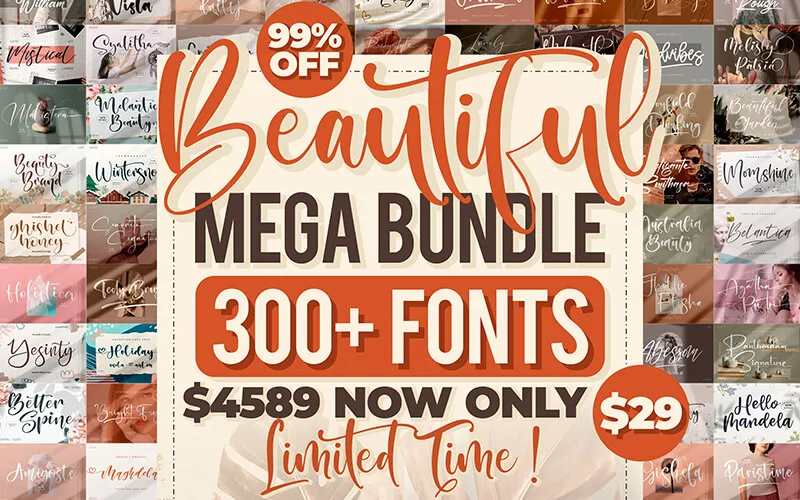
TL;DR
• 350+ beautiful fonts
• Multilanguage support on the majority of the fonts.
• Suitable for logos, crafting, invitation cards, apparel, headlines, business cards, inspirational quotes, tshirt, posters, wedding design, packaging and a lot more!
Need Fonts That Make Your Graphics Beautiful? Here’s presenting the –
350+ Beautiful Fonts Bundle
Make your text the hero of your graphics! Use fonts that not just emphasise the message but add beauty to your graphics. Bedazzle your graphics with delicate and beautiful fonts.
This bundle is not just about quality but great quantity too! You get a bundle of 350+ fonts at your disposal.
Create gorgeous wedding invites, stunning book covers, minimal logos and so much more with these beautiful fonts.
Beautiful Fonts Included In This Bundle:
• Stephenson Brandon
• Rossie Bella
• Beratone Emadre
• Dettina Laura
• Kagemasha
• Cardrone
• Butterfly Holiday
• Tametogde
• Tomihesta
• Roslitta Aganta
• Sandershon
• Aulia Beauty
• Namashte
• Simphonitta
• Futuristic Signature
• Clara Sherly
• Hercutes
• Herlita
• Authentic Calisttera
• Hirestari Love
• Huttan Cerote
• Charlotte Pharly
• The California Hustle
• Hiratheria
• Indonesia Ceriwise
• Menttari Sparkle
• Chamelia Blinkar
• Amantaria Beauty
• Butterfly Glorista
• Sarah betty
• Marira Binttang
• Kalingtone Brilliant
• Derlinata Space
• Lemonte Buster
• Aprilia Marelo
• Amalia Nurse
• Clarlisse Dawson
• Happy Floral
• Wonderful Rendola
• Love Erlia
• Patrick Hinton
• Rallystta
• Emely Love
• Rubie
• Lightshoot
• Ventta Watter
• Deirma
• Farmhouse Morning
• Syahrine Love
• The Limited
• Darinella
• Cheese Foodies
• Mastille Attedro
• Aprilisa
• Beternite Limited
• Lemon Delight
• Washington Signature
• Lombok Beach
• BluBird
• Brilliant Signature
• Tomcat Likely
• Cutie Delina
• Silvana Bright
• Noted Party
• Amsterdam Signature
• Michigan Custom
• Buffalo City
• Candy Dino
• Twinkle Spark
• Rafaesty Wigera
• Baby Shower
• Handwritten Dreams
• Emely Days
• Handover Signature
• Balloon Dreams
• Amorillan Orgendam
• Sweet Cake
• Loving Paris
• Sepia Love
• Janji Cinta
• Drawing Kids
• Jacky Boys
• Summer Beach
• Pixel Craft
• Portofolio Brilliant
• Bullgeria
• Allinda Light
• Washington Lifestyle
• Delrosa Holiday
• Casttelo Signature
• Summer Lovely
• Marlyta Lovely
• Berline Spark
• Princes Gabriela
• Delia Monogram
• Humaira Monogram
• Bulgaria Emilton
• Amsterdam Laviera
• Rafaela Monogram
• Ziviliam Monogram
• Yumeira Monogram
• Vierasti Monogram
• Rotherdam Signature
• Party Rocky
• Lamberta Signature
• Dandelion Pelangi
• Prilistale
• Summer Flowers
• Dear Honey
• Andytta Selya
• Delmonte Absolute
• Futerdam Knight
• Delight
• Mantilda Edition
• Rosterdam Signature
• Delynta
• Freyatina Pelgona
• Belgium Victory
• Manchester Signature
• Dandelion Sweety
• Barbara Derina
• Emelystta
• Optimistic Signature
• Delmonteria Fidmonte
• Brittney style
• Plasmatic Signature
• Kristal
• Beslatty
• Rentrick Kentack
• Meliska
• Midletton Blenda
• Jhonathan Hartman
• Pelgona Stilman
• Blendstera
• Rodriguesta
• Brotherdam Signature
• Deligante Smithasa
• Optimistica Dreams
• Renattha Signate
• Beterdam Smith
• Agatha Putri
• Rafaela Grante
• Halingtone William
• Reltinata Signature
• Renathalia Signature
• Mantilda Kristine
• Flash Light
• Amsterdam Bright
• Rockystyle Signature
• Washingtone Delmonte
• Bright Fresh
• The Magestica
• Saturday Bright
• Victory Landera
• Amigate Endgame
• Nestone
• Yesterday Delmonte
• Hunterland Ontime
• Hartman & Richard
• Fighterland Script
• Artistica
• Xantegrode Signature
• Brandon Smith
• Beautiful Garden
• Sunday Freedom
• Lovely Garden
• Washington Yesterday
• Handscript Signature
• Blandita
• Mustard
• Safira Brown
• Tedy Brush
• Joyfield Darling
• Ghisel Honey
• Alisabela Brushley
• Jholie Elisha
• Blendaria
• PatriaVista
• Melisty Patria
• Rafaela Salitha
• Alisha Gishela
• Hafizah
• Collinsaber
• Futuristic Caligraph
• Balencia Lattive
• The Sunday Lovely
• Belac Orlan
• The Cralington Signature
Saturday Bright Font​, commercial script ttf
Reltinatha Signature Font
Reltinatha Signature Font​, script casual font
Midletton Blenda Font
Midletton Blenda Font​, sweet fancy script font
Rentrick Kentack Font
Rentrick Kentack Font​, beautiful fonts